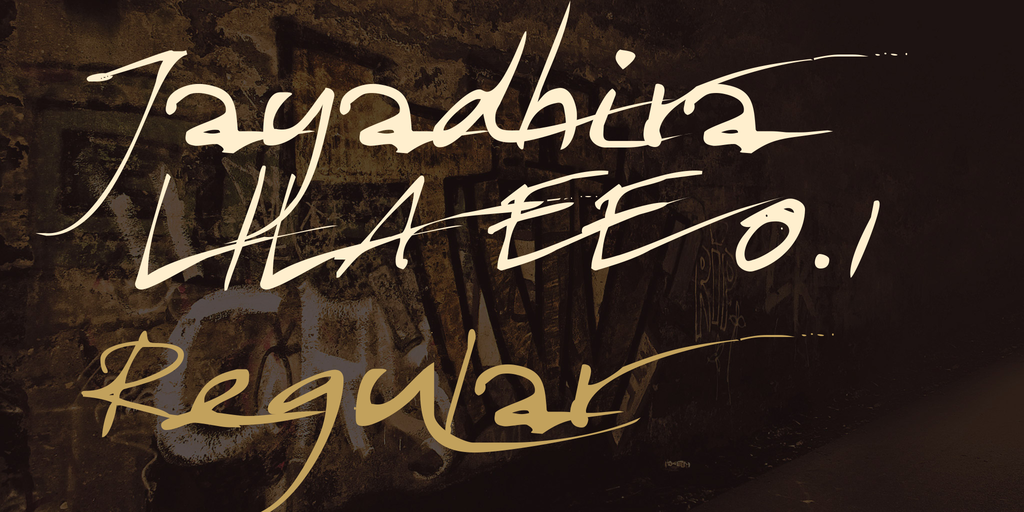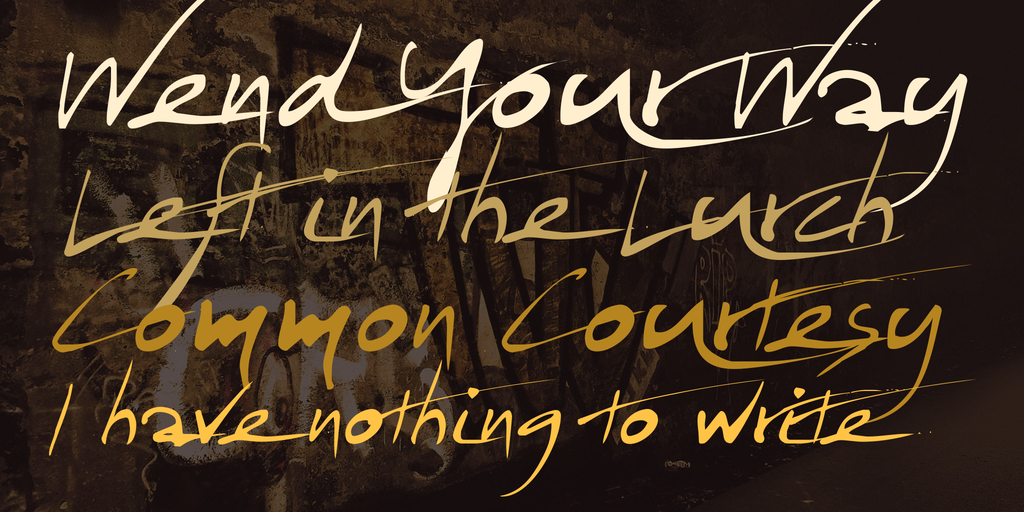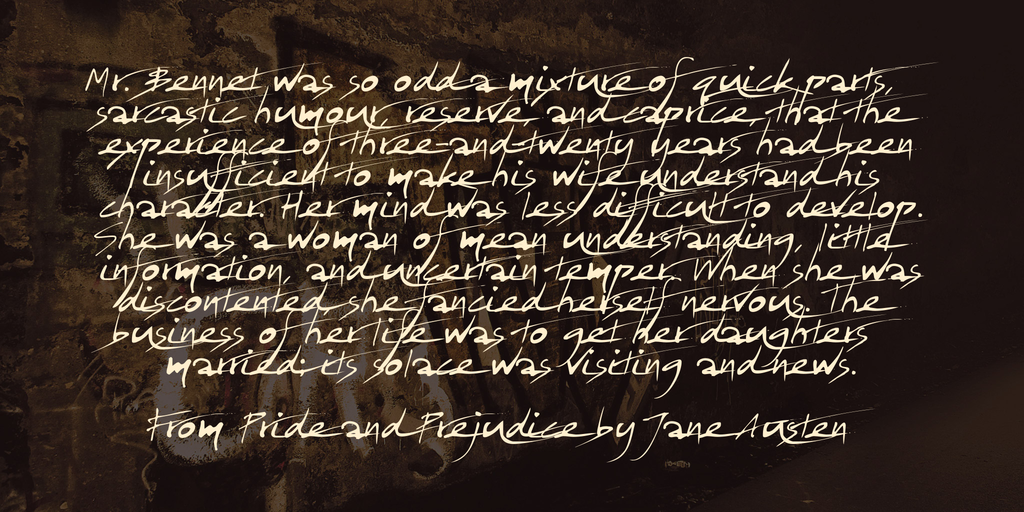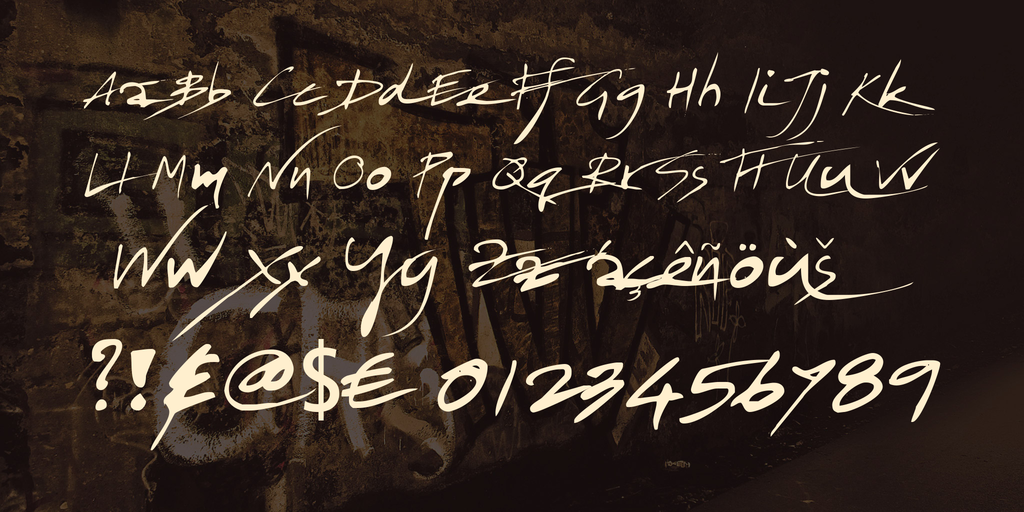
Jayadhira Lila English typeface is the handwriting of Kirtikhacara Jayadhira; featuring Roman letters of Sanskrit trans-literature. Developed from Gerald Scarfe’s typrface in Pink Floyd’s The Wall (1979).
Jayadhira LILA EE 0.1 Font